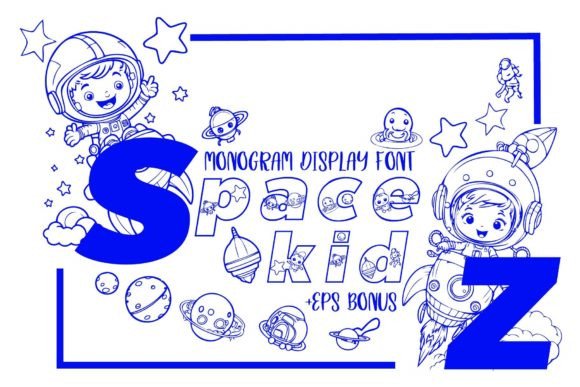
Journey into the realm of boundless creativity with Space Kidz Font, a display font that commands attention and ignites imaginations. Step into a world where letters transform into playful companions, each character bursting with personality and charm.
With Space Kidz Font, you'll embark on an extraordinary adventure where typography meets art. This font is not just a collection of characters; it's a gateway to a universe where words come alive and stories unfold. Whether you're a designer seeking to captivate your audience or a storyteller looking to transport readers to new worlds, Space Kidz Font is your passport to boundless expression.
Unleash your inner child and let your creativity soar with this font. Its bold strokes and playful curves evoke a sense of wonder and whimsy, making it the perfect choice for projects that demand a touch of magic. From children's books and posters to greeting cards and social media posts, Space Kidz Font will add a spark of joy and excitement to any project you undertake.
Dive into the depths of this font's versatility. With its extensive glyphs and swashes, you'll have an arsenal of creative possibilities at your fingertips. Experiment with different combinations and arrangements to create unique and captivating designs that will leave a lasting impression on your audience.
But don't just take our word for it. The Space Kidz Font has already captivated the hearts of countless designers and creatives worldwide. Join the ranks of those who have discovered the transformative power of this font and witness how it elevates your projects to new heights of brilliance.
So, embark on this extraordinary journey with Space Kidz Font today and unlock the boundless potential of your creativity. Let your imagination run wild, embrace the playful spirit of this font, and create masterpieces that will inspire and enchant all who encounter them.